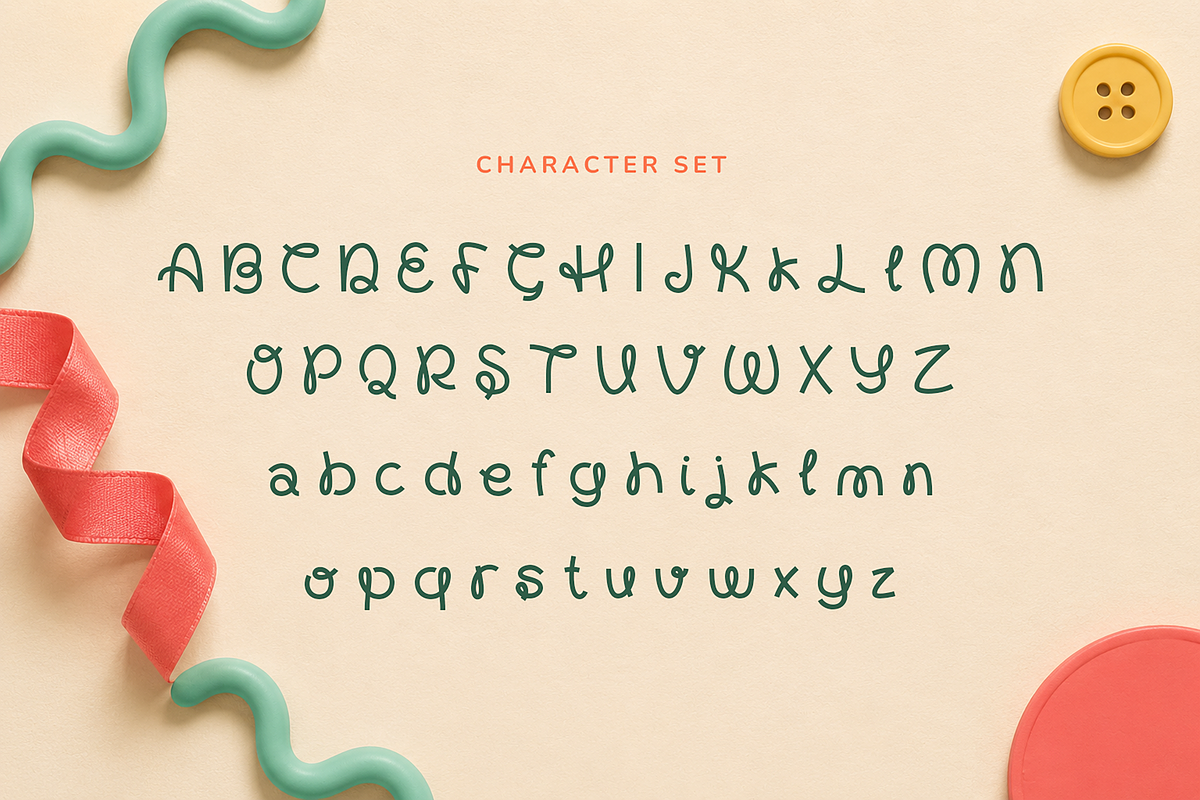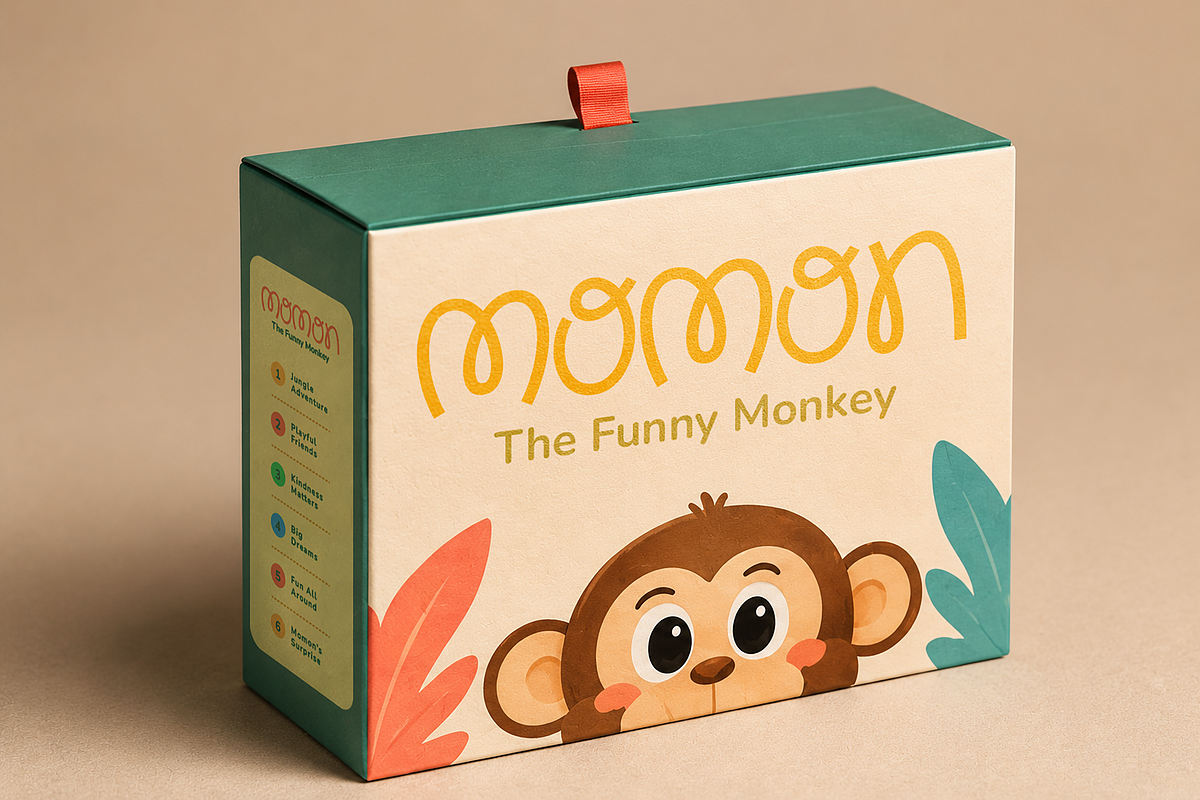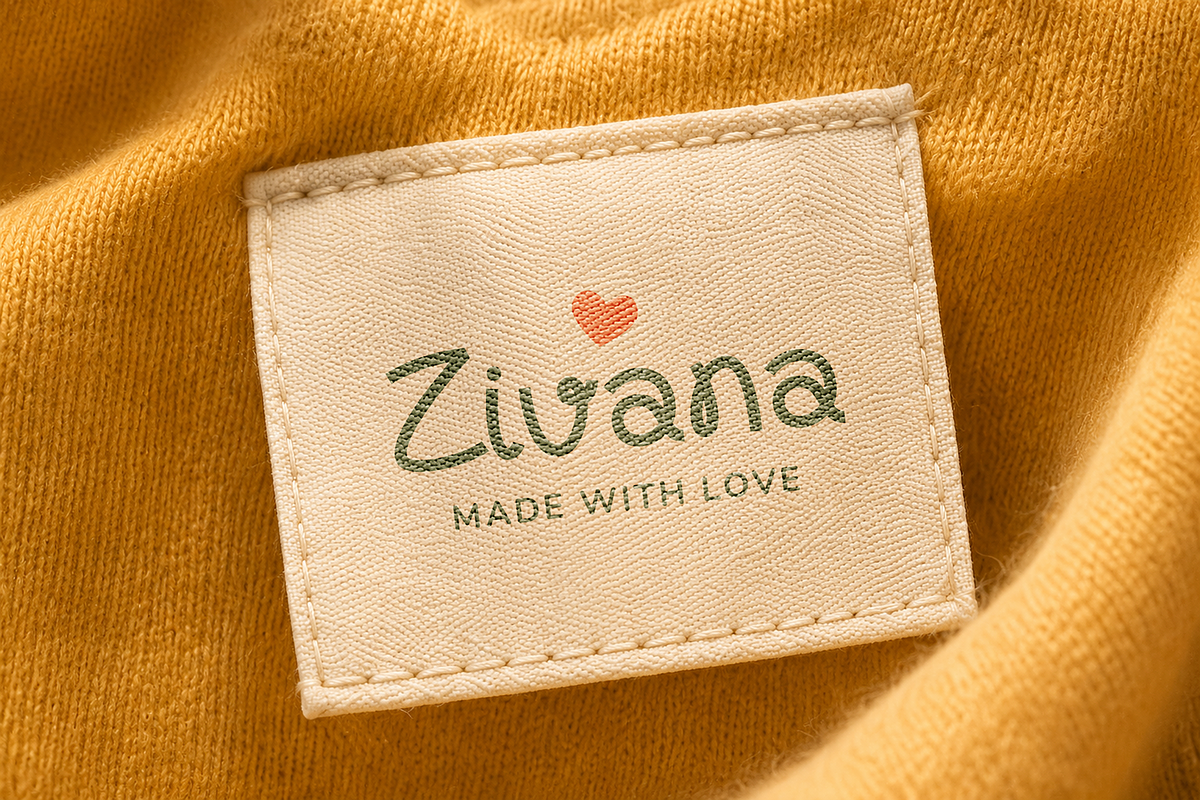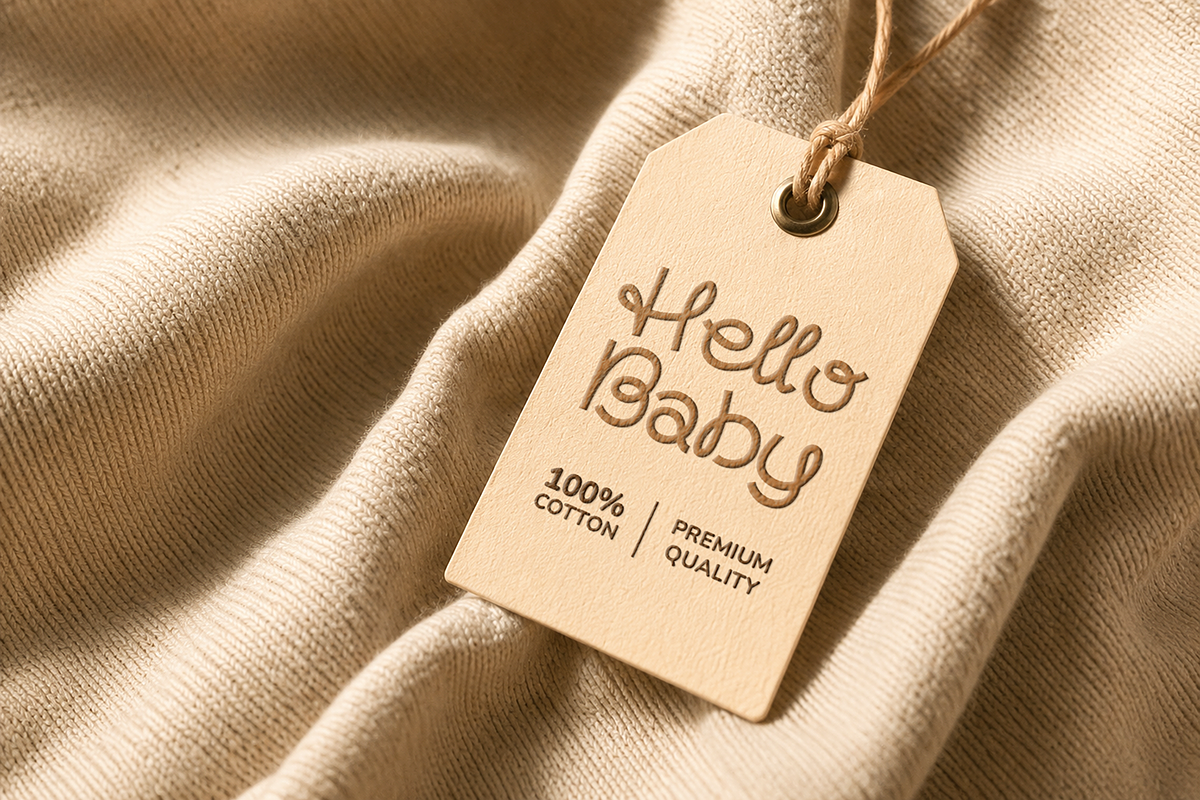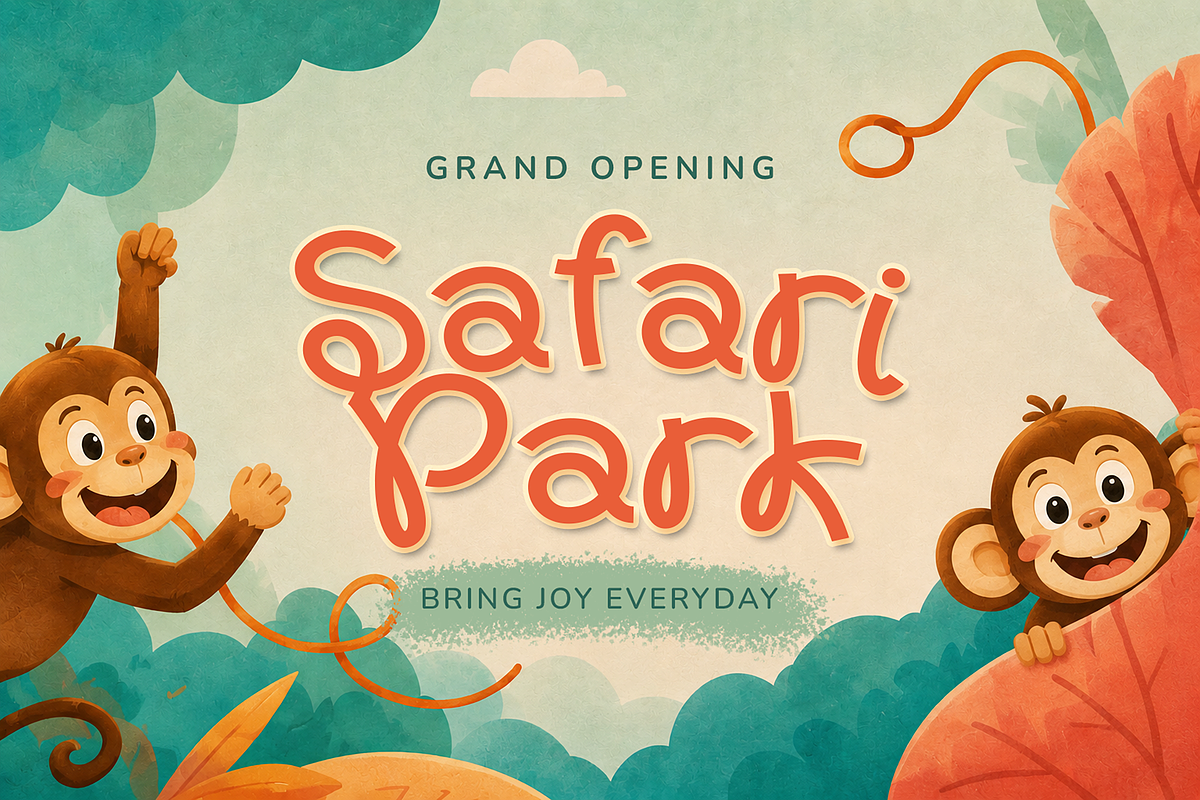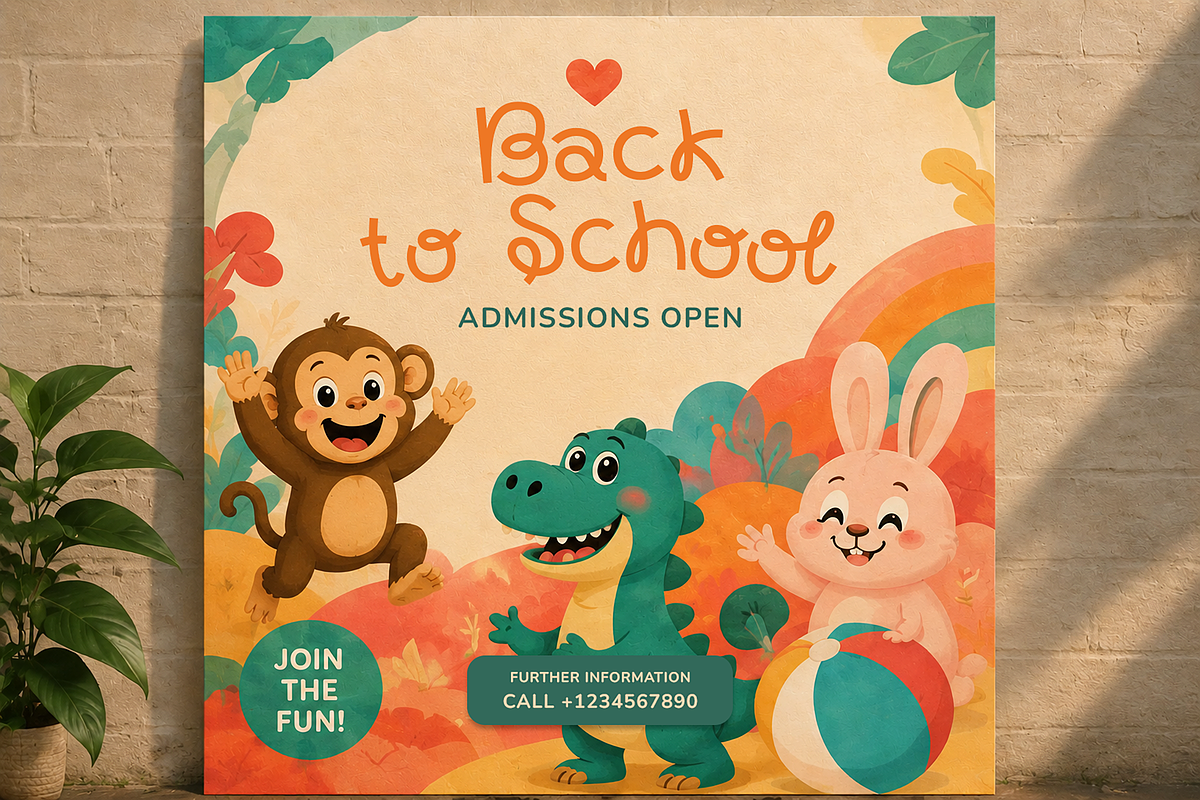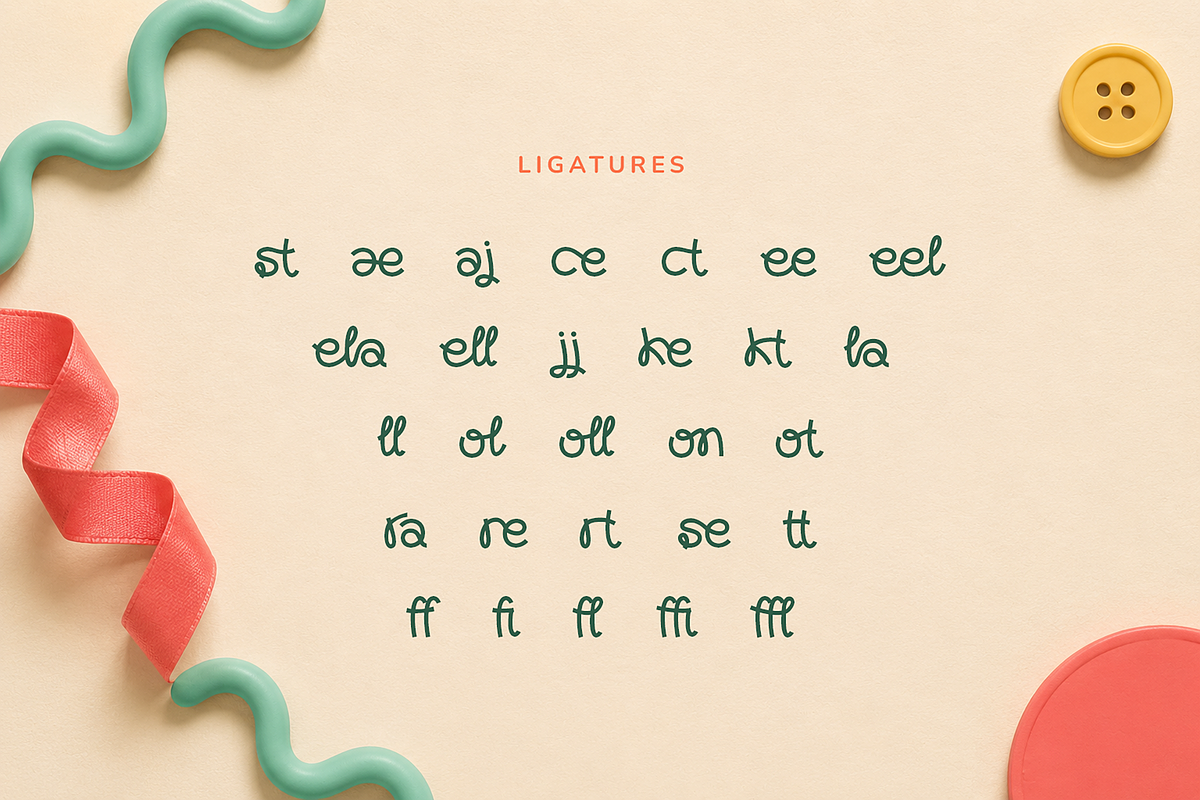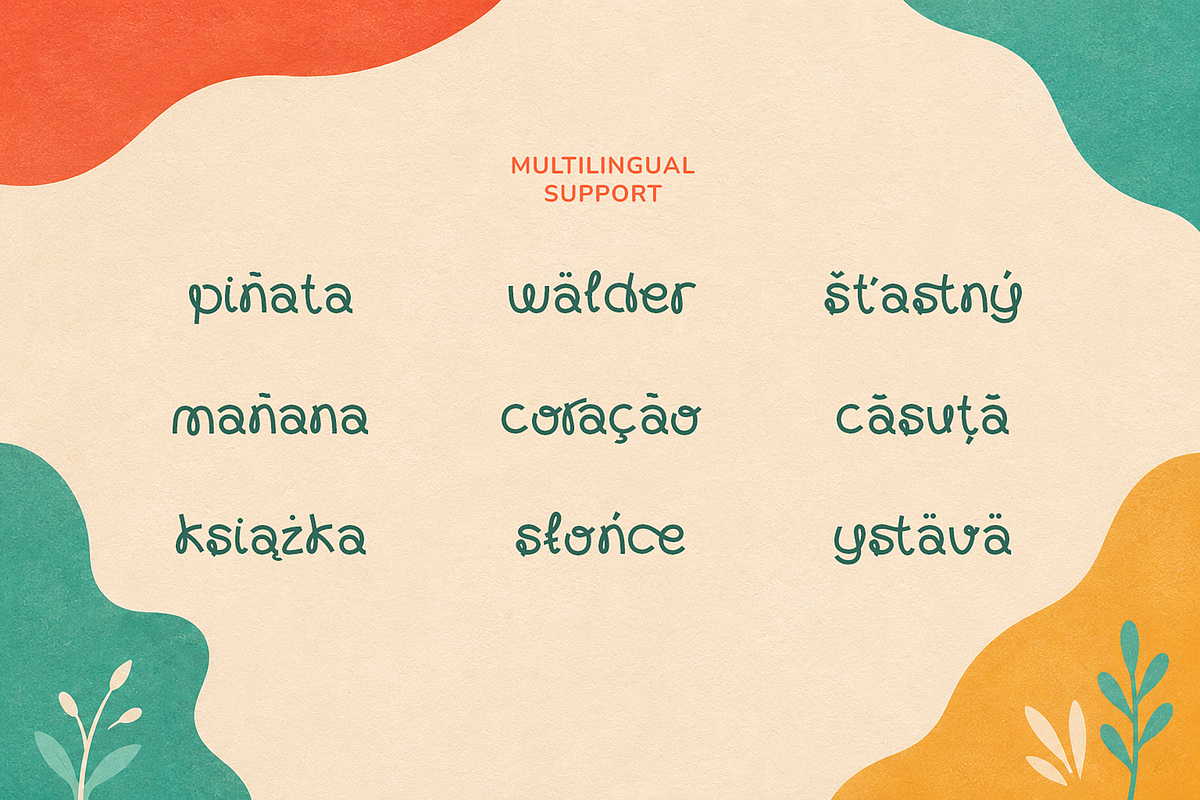
Monkeela | Playful Loop Display Font
Monkeela is a premium display typeface that seamlessly combines a playful aesthetic with exceptional structural legibility. Characterized by its distinctive looped terminals, bouncy baseline, and organic rhythm, Monkeela is engineered specifically for display contexts such as children's publishing, casual branding, thematic advertising, and engaging digital media UI/UX.
The typeface features precisely balanced kerning pairs and a robust set of OpenType features, including contextual alternates and standard ligatures that prevent repetitive letter patterns in headlines. Monkeela provides designers with the perfect asset to build approachable, friendly, and visually striking brand identities for the modern creative market.
Full uppercase & lowercase alphabet
Fun ligatures & stylistic alternates
Numbers, punctuation, and multi-language support